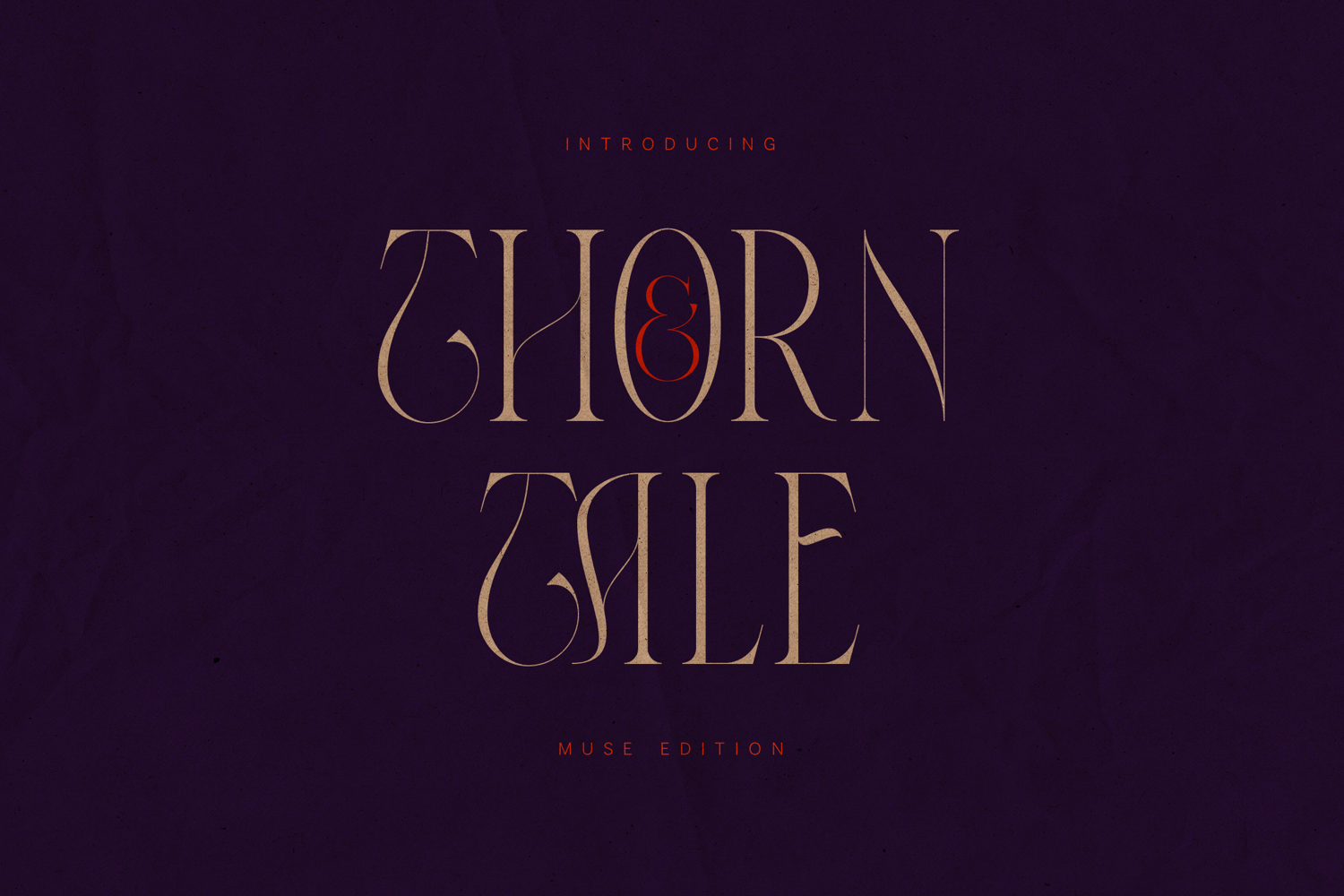
Thorn & Tale Elegant Serif Font
Thorn & Tale is a refined high-contrast serif typeface designed with graceful curves, sculpted terminals, and artistic letterforms. Inspired by classical typography with a modern editorial twist, it blends sophistication and personality in every character.
With its distinctive swashes and decorative alternates, Thorn & Tale is perfect for luxury branding, fashion editorials, book covers, logos, invitations, packaging, and high-end visual identities. The font delivers a timeless aesthetic while maintaining contemporary elegance.
Thorn & Tale includes uppercase and lowercase letters, numbers, punctuation, multilingual support, and stylish alternates that elevate any design composition.
• Decorative Alternates
• Muse Edition Style